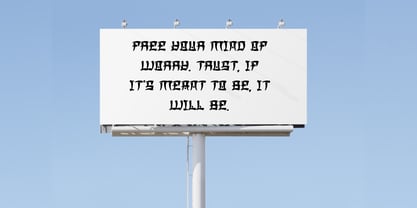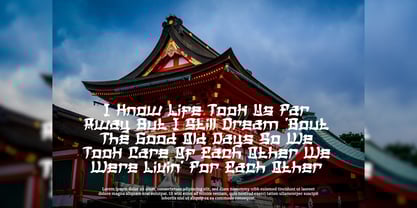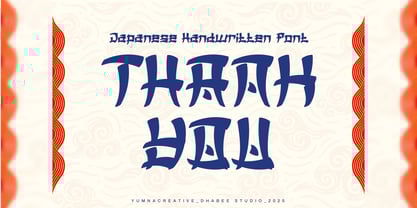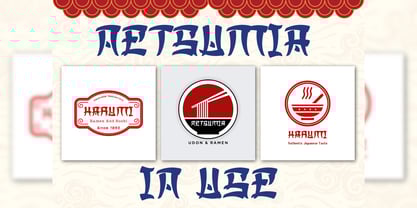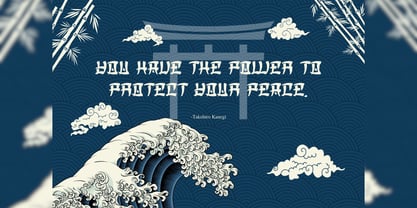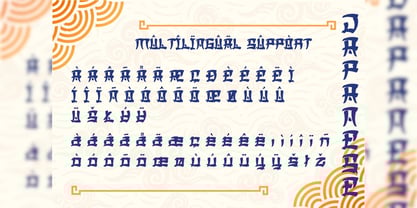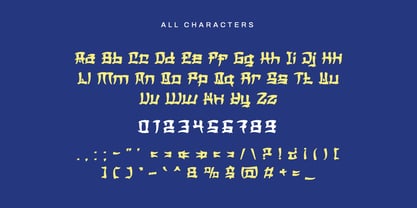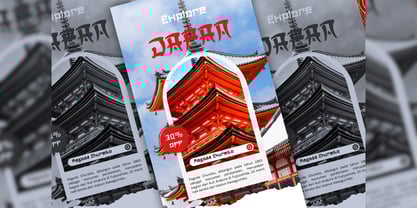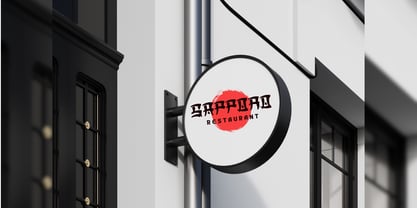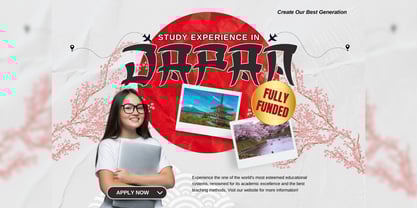
Netsumia
The Netsumia Font Family was designed by Dhimas Habibie and published by Yumnacreative. Netsumia contains 1 styles. More about this family
Introducing Netsumia – Japan Handwritten Font
Netsumia – Japan Handwritten Font that embodies urban sophistication with a touch of cultural flair. Perfect for graphic designers, typographers, and creatives seeking to infuse their projects with the vibrant energy of Japan, this font offers a unique typeface that blends traditional Japanese elements with a sleek, contemporary design.
Netsumia – Japan Handwritten Font that we made with excellent taste. We combine ethnic and cultural elements in each of the glyphs. This font is suitable for those of you who like japanese culture, besides this font is also suitable for those of you who have a japanese restaurant, japanese clothing brand, japanese arts, and business purpose related with japanese culture.
FEATURES
– Uppercase and Lowercase letters
– Numbering and Punctuations
– Multilingual Supports